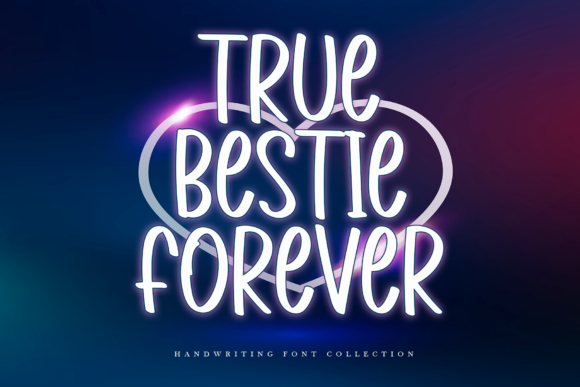
Journey into the world of True Bestie Forever – a captivating handwritten font family that exudes warmth, playfulness, and a touch of whimsy. Inspired by the bond of friendship and the joy of childhood, True Bestie Forever is a font that speaks to the heart. Let your creativity soar as you design projects that radiate charm and personality.
Immerse yourself in a world of endless possibilities with True Bestie Forever. This enchanting script font is a versatile chameleon, effortlessly adapting to a myriad of design styles. Whether you're crafting heartfelt cards, playful invitations, or whimsical posters, True Bestie Forever will infuse your creations with a unique and captivating charm.
Unlock your imagination and embark on a creative adventure with True Bestie Forever. With its endearing quirks and playful spirit, this font is the perfect companion for designers seeking to evoke a sense of joy and wonder. Let True Bestie Forever be your trusty sidekick, guiding you towards extraordinary design achievements.
Experience the magic of True Bestie Forever – a font that captures the essence of childhood dreams and playful adventures. Each character dances across the page, carrying a hint of mischief and an invitation to let your imagination run wild. Embrace the spirit of True Bestie Forever and create designs that ignite smiles and spark conversations.